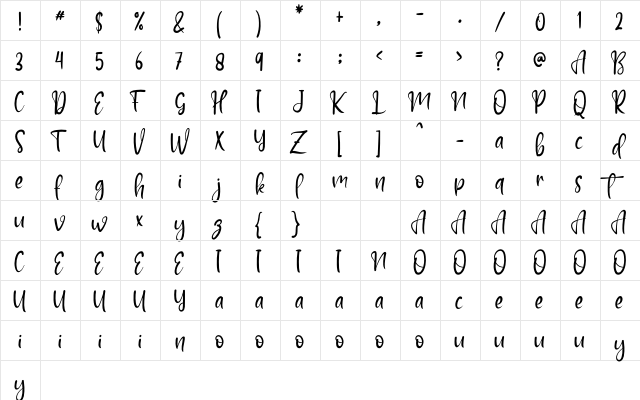
Barcelona Handwritin Regular
Design Context for Barcelona Handwritin Typeface
Barcelona Handwritin flows with the natural rhythm of handwritten lettering, making it ideal for designs that call for warmth and personal expression.
Font Pairing: Combine Barcelona Handwritin with a simple geometric sans for maximum contrast — the tension between flowing curves and clean structure is a classic typographic pairing.
Pro Tip: Pair Barcelona Handwritin with a clean sans-serif for supporting text. The contrast between fluid script and geometric structure creates an elegant typographic hierarchy.